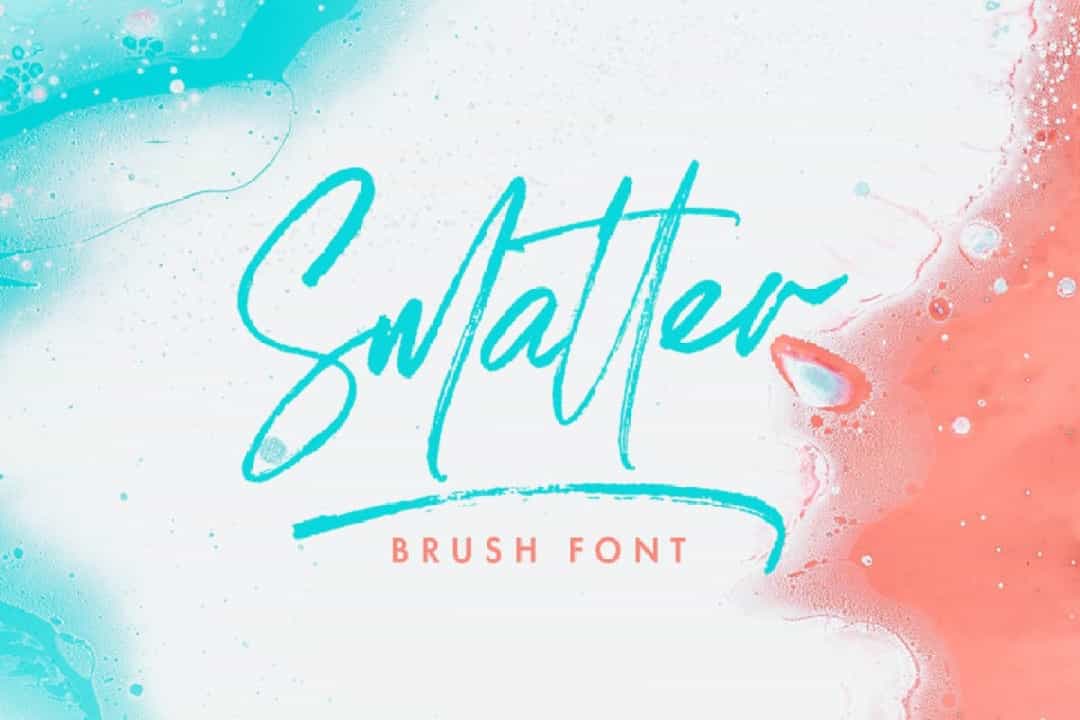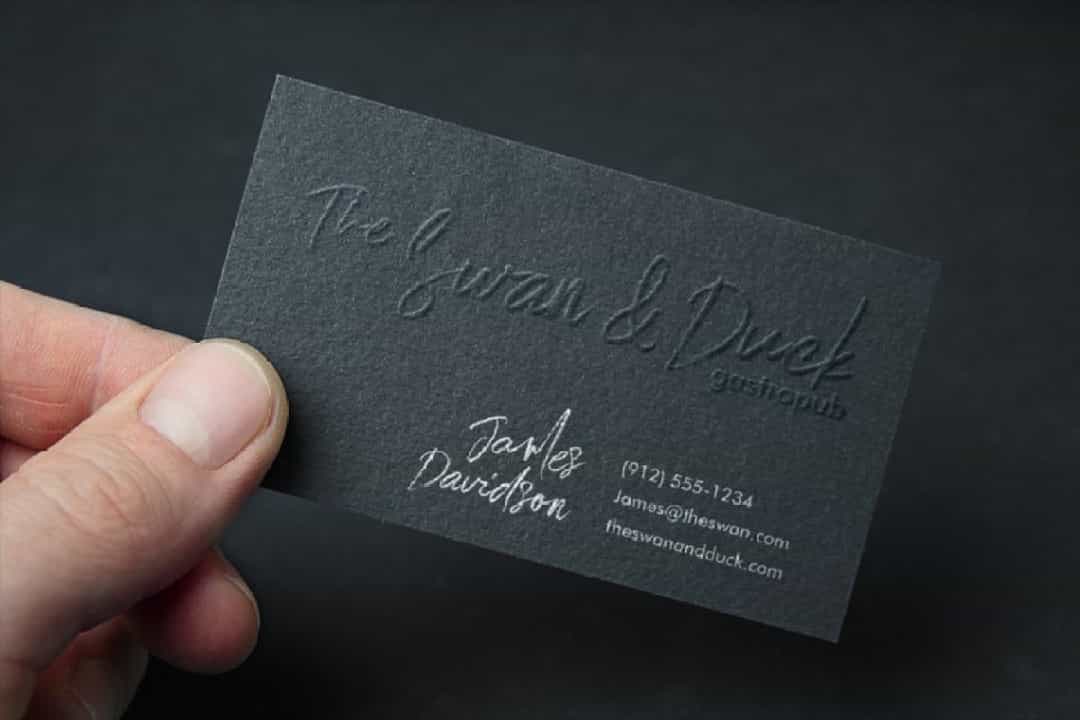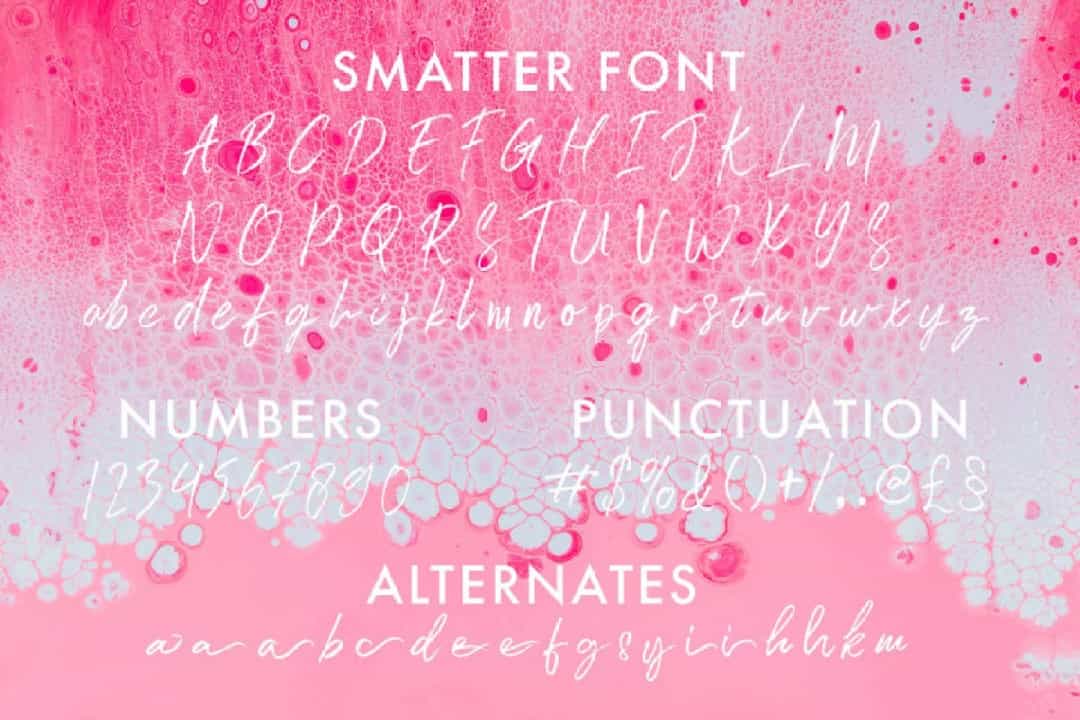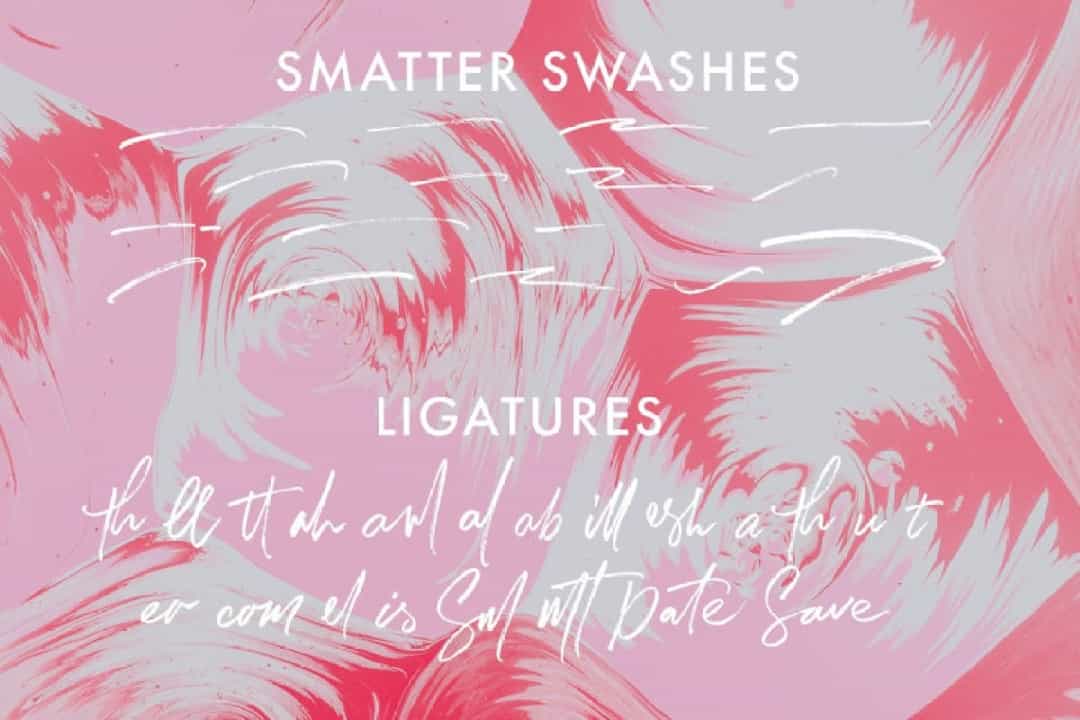
Smatter font is a handmade brush script with a lot of additional options – swashes, ligatures and alternates to create professional and individual typography. Ideal for logos and personal style, as well as for advertising slogans related to social networks, paper goods, and clothing.